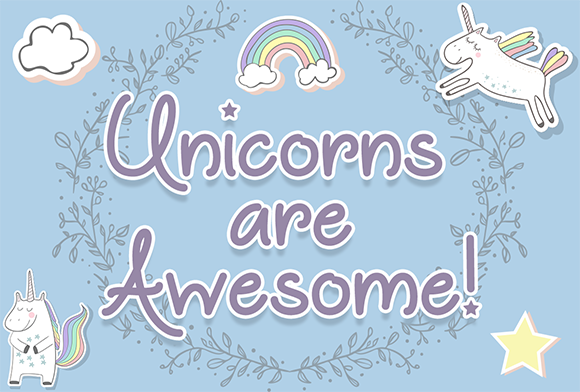
HomeScript FontsUnicorns Are Awesome Font Script Fonts Unicorns Are Awesome Font FacebookXPinterestWhatsApp About Unicorns Are Awesome Font Unicorns Are Awesome is a cute, quirky handwritten font that is perfect for your design and craft projects! DOWNLOAD NOW People also explored Rashard Font Fresh Wumpa Font Bosleya Font Business Font Compendium Sparkling Bubble Font Medhorn Font English Font Battog Font 317 0 TagsUnicorns Are Awesome Font Previous articleSippin on Sunshine FontNext articleHypnos Font LEAVE A REPLY Cancel reply Comment: Please enter your comment! Name:* Please enter your name here Email:* You have entered an incorrect email address! Please enter your email address here Website: Save my name, email, and website in this browser for the next time I comment. Personal Use Free Feather Script Personal Use Free Read more about this font Lovetle Personal Use Free Read more about this font Dr.Marz Personal Use Free Read more about this font Drip October Font Personal Use Free Read more about this font BLOG Using Fonts in Digital Marketing: Tips to Strengthen Your Brand Identity In the realm of digital marketing, every visual element plays a crucial role in shaping a brand's identity, and fonts are no exception. The... Fonts That Capture the Spirit of New York City How to Install and Use Fonts on Windows, macOS, and Web Projects Elegant Wedding Invitation Fonts – Handwritten & Script Fonts